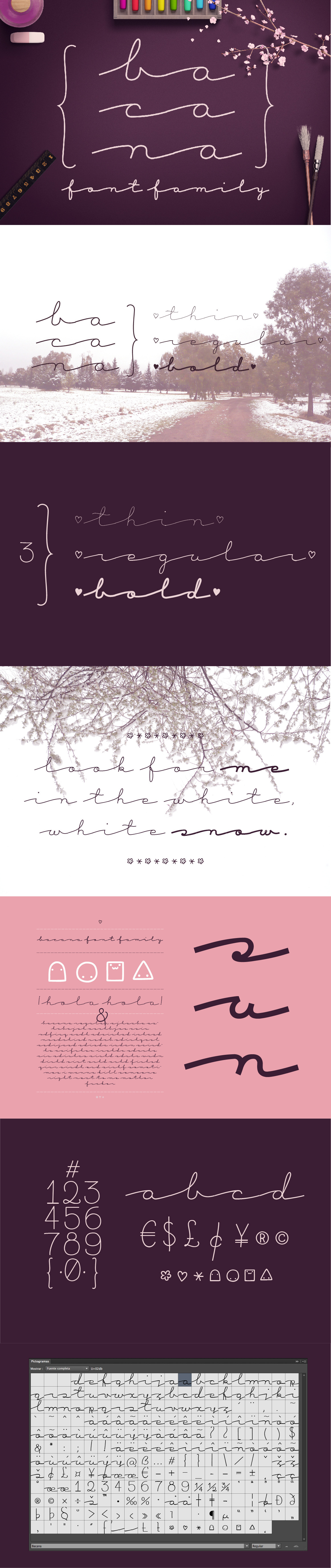
Bacana font family
Bacana font family is a display font available in 3 different styles: thin, regular and bold. You may buy them all together, or FREE download the regular version here: